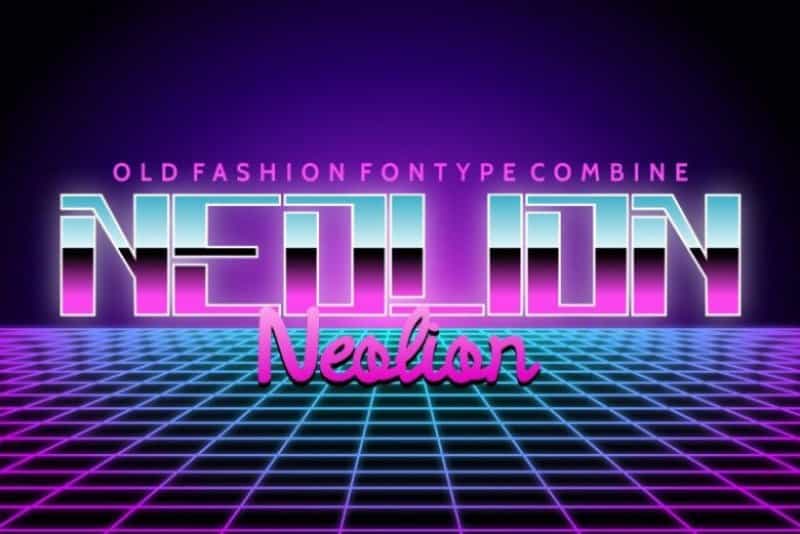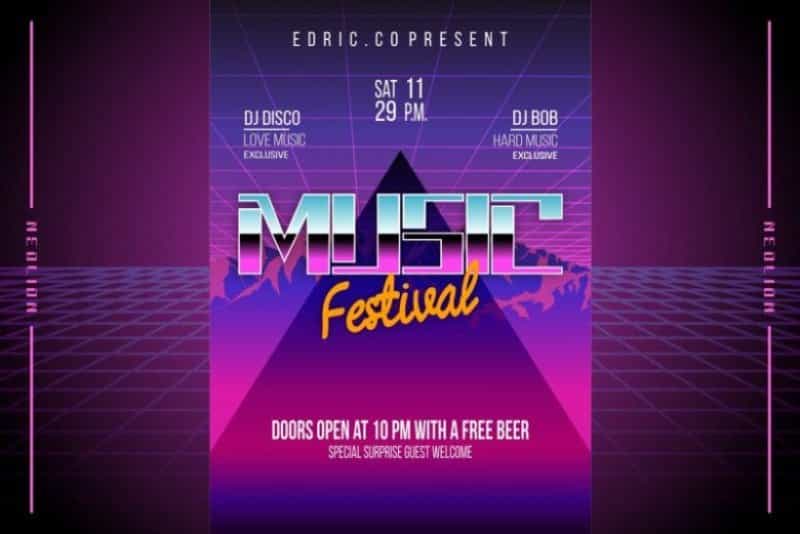
Please meet our newest font : Neolion !This is a Neolion Font Duo which has modern but at the same time retro style sans serif PLUS a calligraphy pen writing script. Unique and exclusive